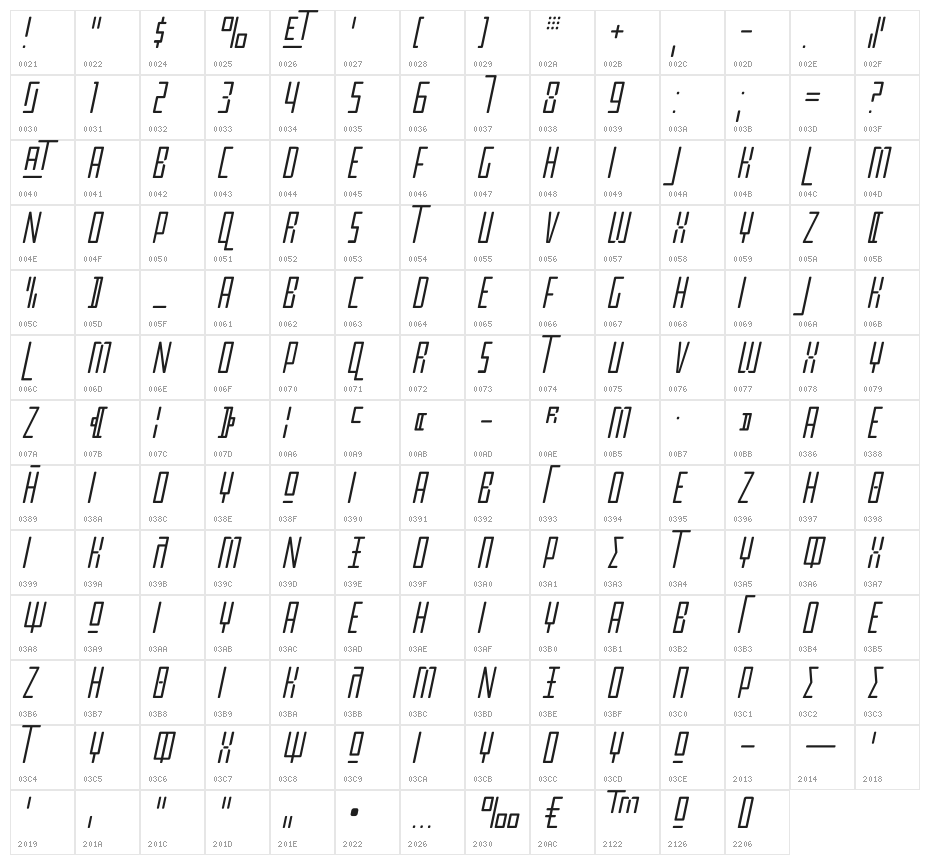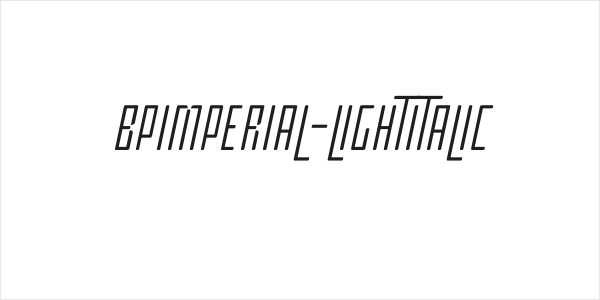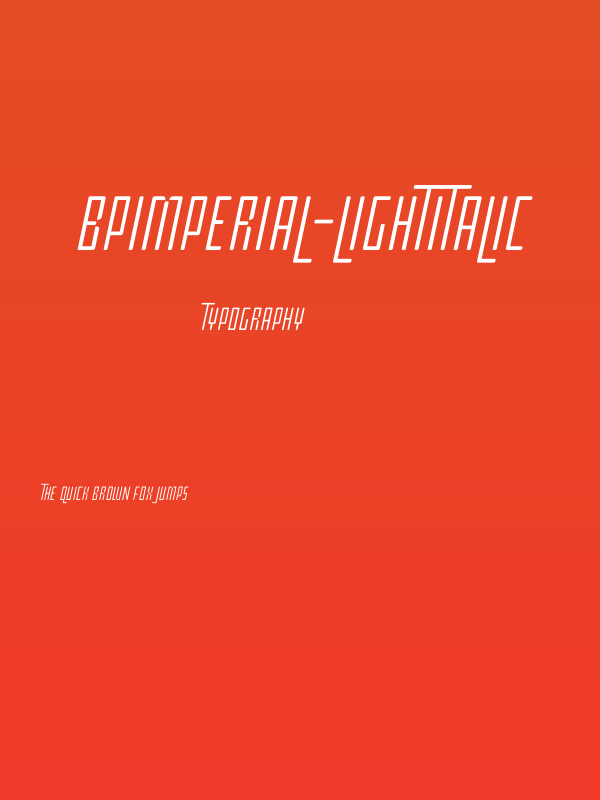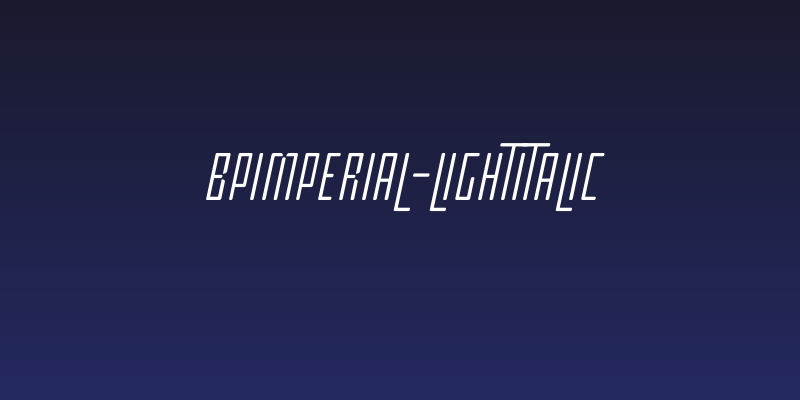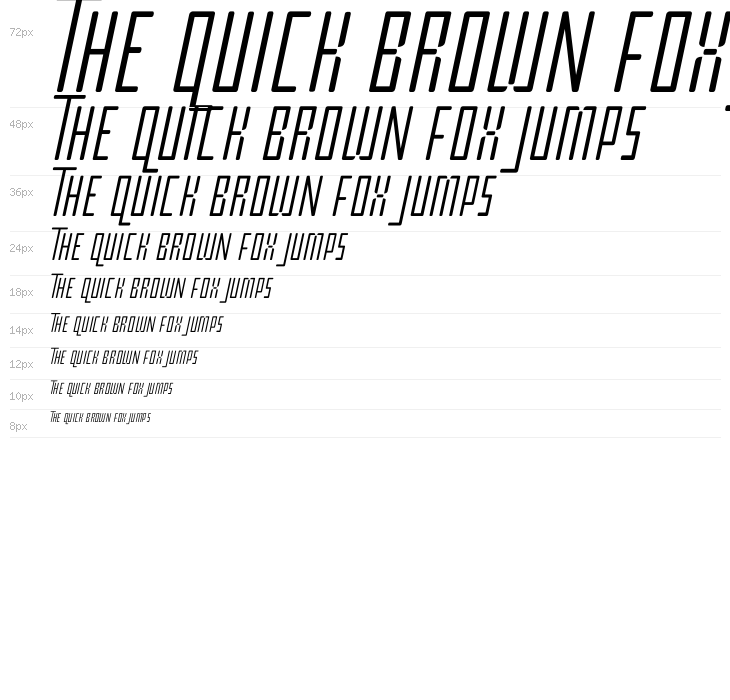
BPimperial-LightItalic Font
BPimperial-LightItalic Description
This font features a sleek, modern design with elongated, narrow characters that convey a sense of elegance and sophistication. The letters are slightly italicized, adding a dynamic and fluid appearance. The strokes are consistent in width, providing a uniform look across all characters. The font includes a full set of uppercase and lowercase letters, numerals, and a variety of special characters. Its clean lines and minimalist style make it suitable for contemporary design projects.
| Proposed Projects | Ideal for branding, editorial design, and modern digital interfaces. |